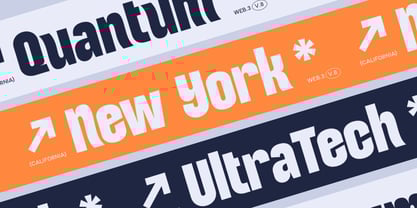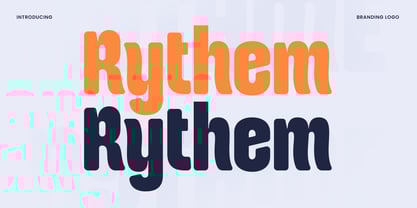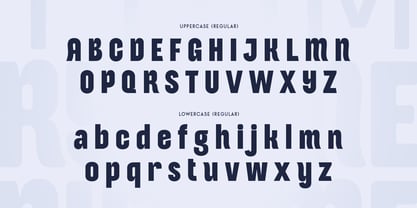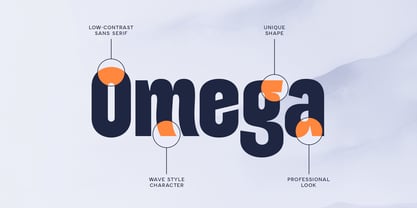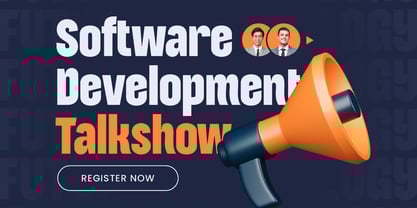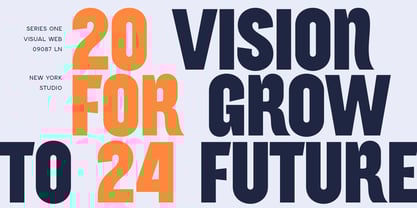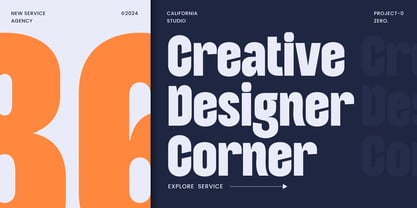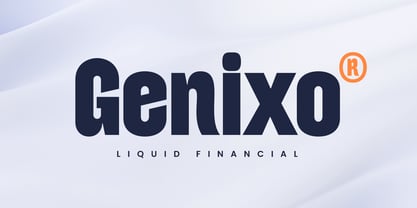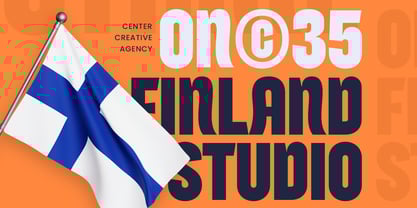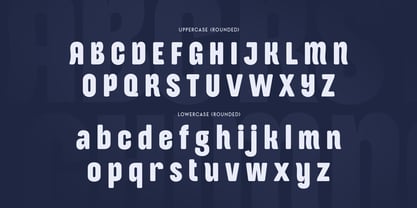
Rythem
Die Schriftfamilie Rythem wurde von Zamroni Hamzah entworfen und von Sensatype Studio veröffentlicht. Rythem enthält 2 Stile und Familienpaketoptionen.
Rythem - Rounded Condensed Branding Logo Font
Rythem is a condensed font crafted for modern branding and logo design. Its sleek and streamlined characters are perfect for creating a strong visual identity. Whether you're designing for a corporate brand or a creative project, Rythem offers the versatility and elegance needed to make your work stand out.
Born from a passion for minimalistic design, Rythem blends form and function seamlessly. The font's condensed style allows you to maximize space without sacrificing readability, making it ideal for logos, headlines, and branding materials. Rythem's clean lines and unique characteristics give it a distinctive edge, while still maintaining a professional appearance.
Rythem is available in both normal and rounded styles, giving you the flexibility to match your design's tone and mood. With full punctuation, numbers, and symbols, as well as multilingual support, Rythem is a comprehensive solution for any designer looking to create impactful and cohesive branding.
Rythem Branding Logo Font Features:
• Unique Characters Ready
• Ready with Normal and Rounded Style
• Punctuation, Number, and Symbol
• Uppercase and Lowercase
• Multilingual Support
• Opentype Features